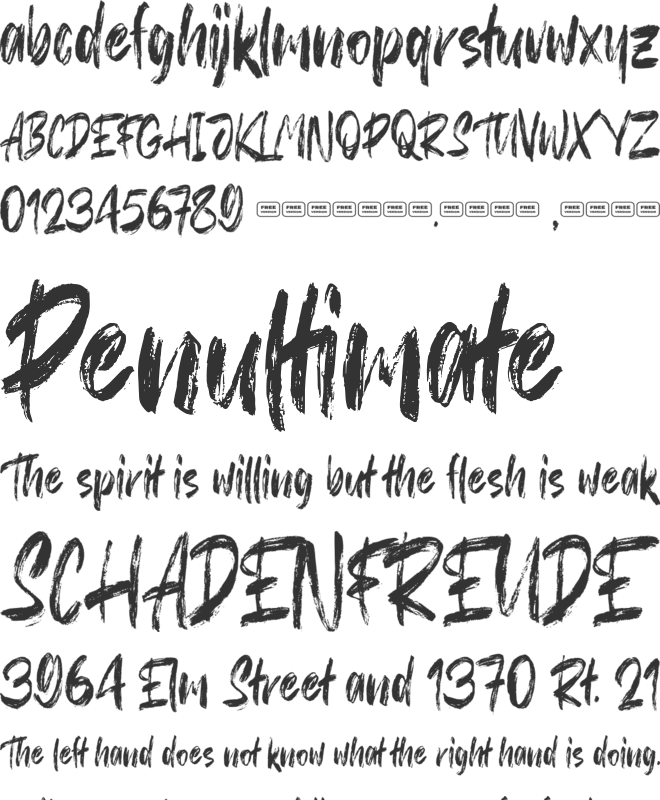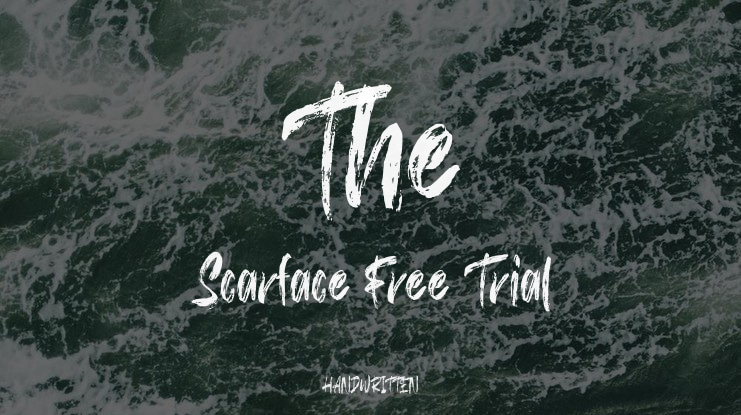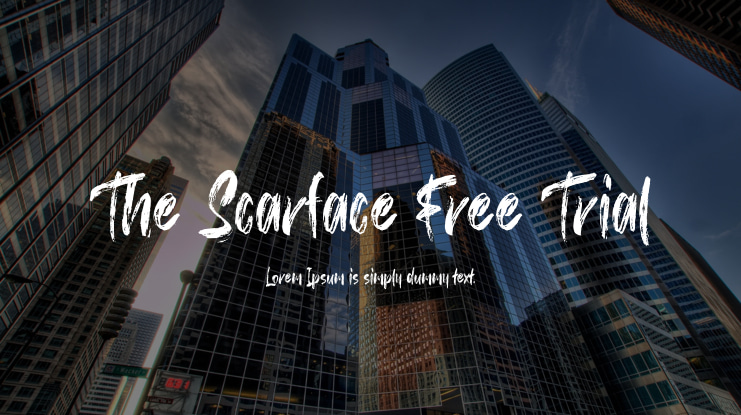
The Scarface Free Trial Font
Discover the rugged charm of "The Scarface" font - a tough brush style that brings a gritty touch to your designs!
With its rough and expressive letters, "The Scarface" embodies the essence of raw authenticity. Each character is carefully designed to inject a bold and unique character into your projects, making it ideal for urban branding, rebellious posters, street art influenced artwork, and more.
Embrace the urban energy of "The Scarface" font as it effortlessly elevates your designs. Whether you are creating edgy logos, eye-catching album covers, dynamic headlines, or engaging social media posts, this font will captivate your audience with its rough and expressive aesthetic.
Embark on a journey of bold creativity with "The Scarface" font and make a striking impact with your designs!